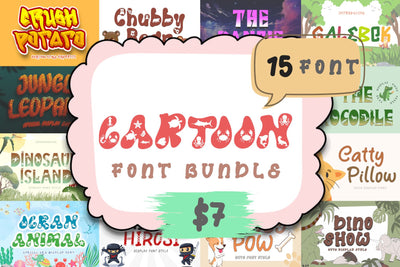
Cartoon Font Bundle
1. Catty Pillow
2. Chuby Bear
3. Crush Potato
4. Dino Show
5. Dinosaur Island
6. Doggy Papaw
7. Doggy Pow
8. Doggy Smart
9. Galebok
10. Game Crack
11. Jungle Leopard
12. Ninja Hirosi
13. Ocean Animal
14. The Crocodile
15. The Kanzie